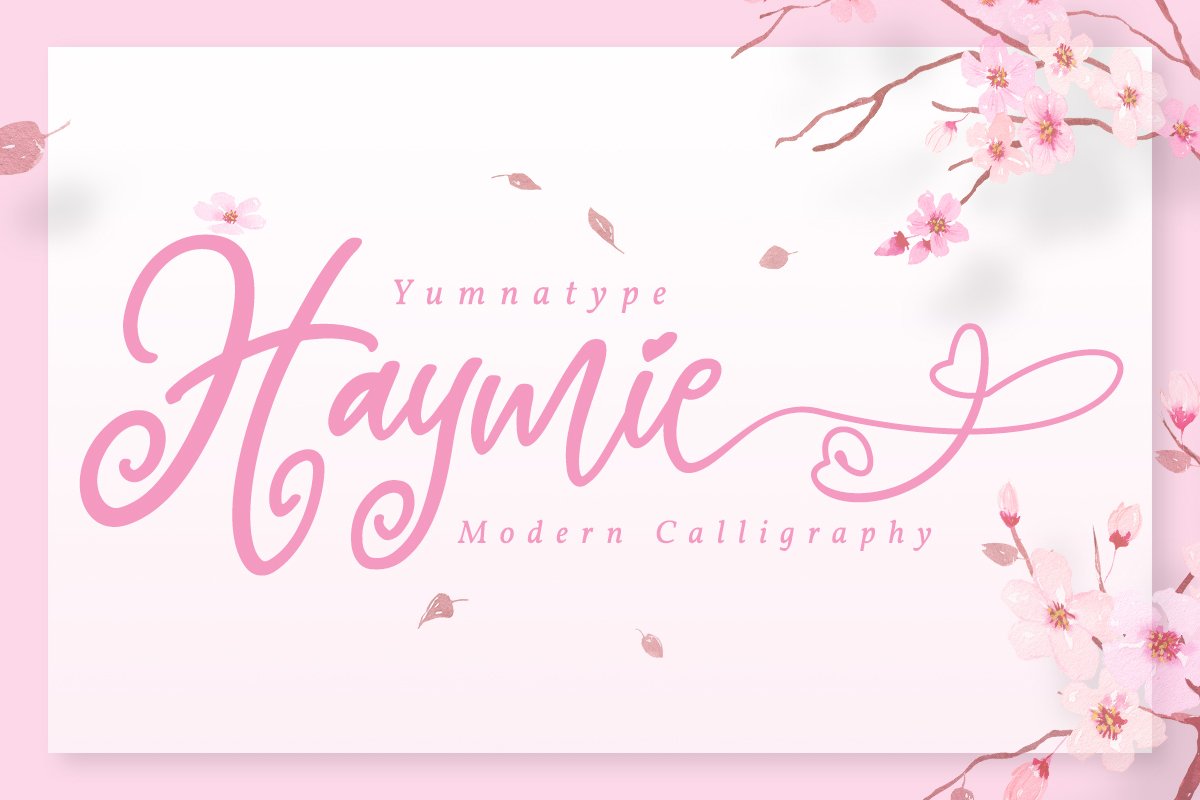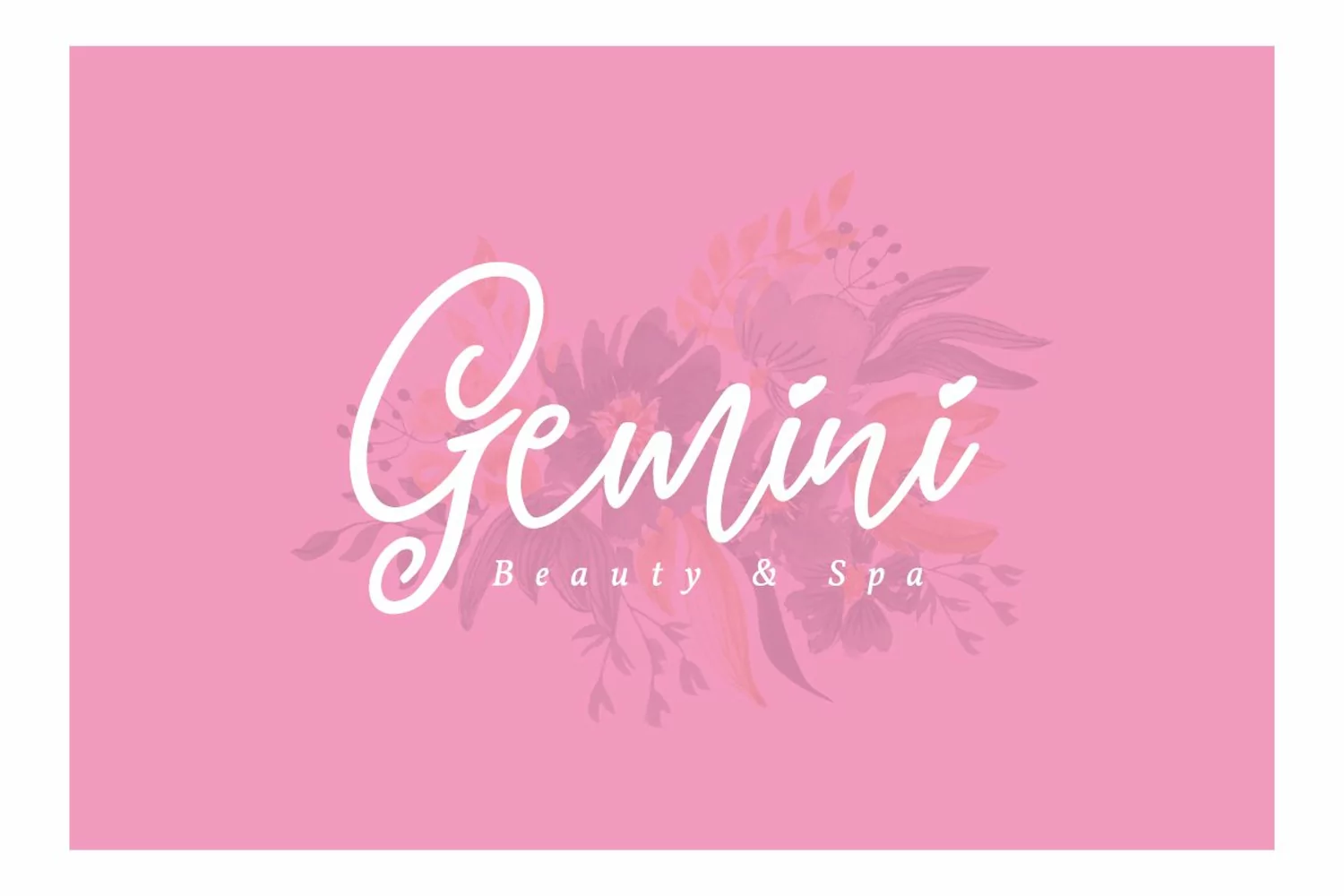
Say hello to Hayme Script.
Hayme is a beautiful and modern script.
It brings a beautiful and modern typeface that best used for weddings, branding, logotype, and quotes.:
- 52 Beautiful Alternates + Swashes
- Numerals and Punctuation
- Beginning Swash and Ending Swashes (a-z)